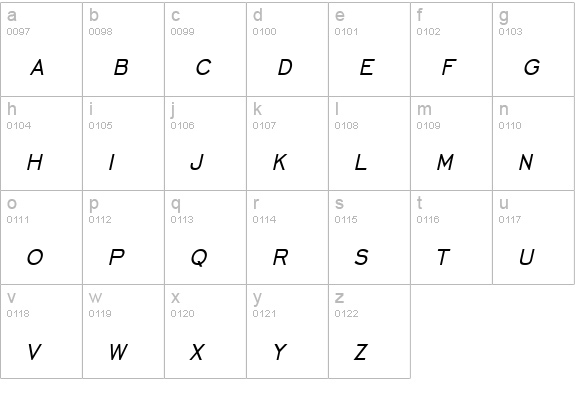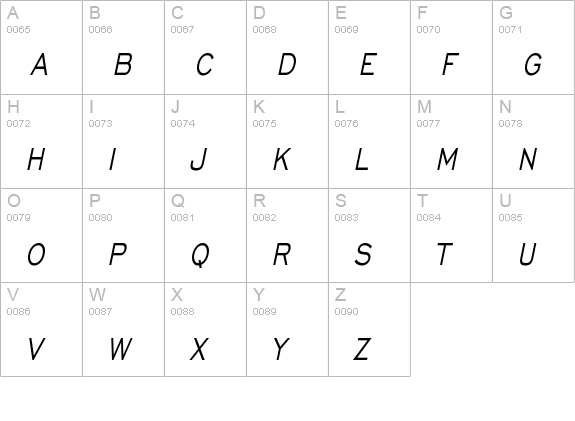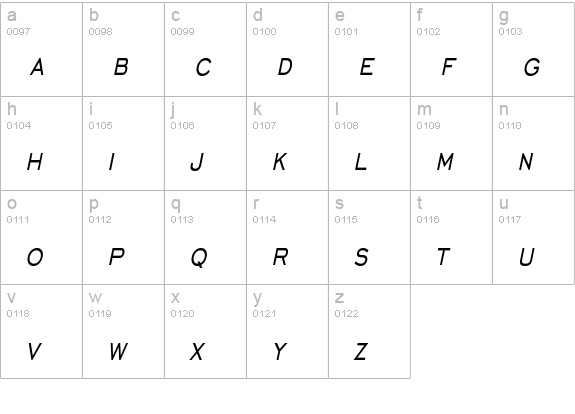
Chisel Thin Italic is a delicate, low-contrast, italic variant in the Chisel typeface family \xE2\x80\x94 well suited to fashion editorial, minimal branding, and high-contrast display.
Chisel Thin Italic font is a sleek and stylish typeface that exudes sophistication and elegance. The thin, chiseled strokes of this font give it a modern and contemporary look, making it perfect for adding a touch of refinement to any design project. The italicized style adds a sense of movement and flair, making Chisel Thin Italic font a versatile choice for a wide range of applications. Best of all, Chisel Thin Italic font is available for free download at FontsMarket.com. Whether you're designing a logo, creating a poster, or crafting a website, this font is sure to make a statement and elevate your work to the next level. Download Chisel Thin Italic font today and add a touch of sophistication to your designs.